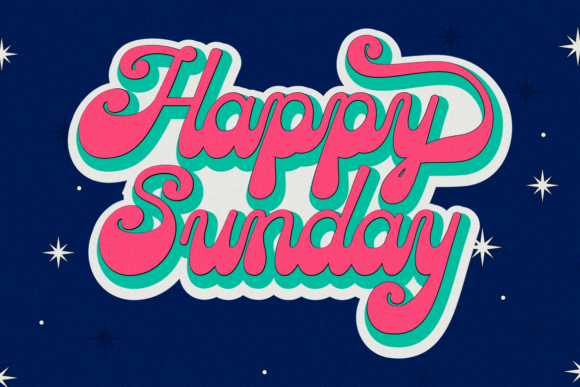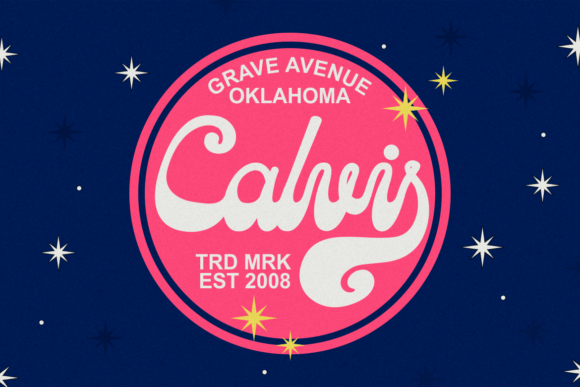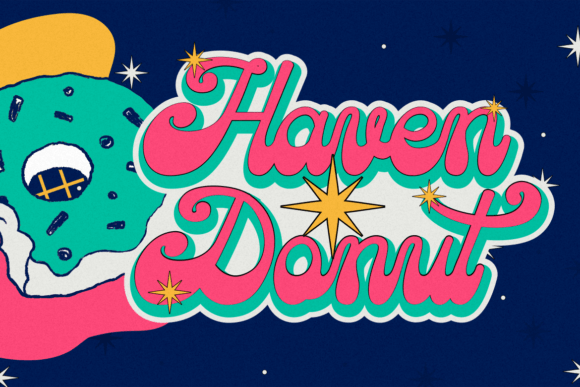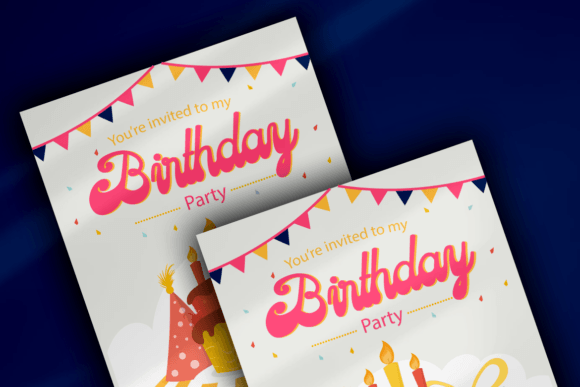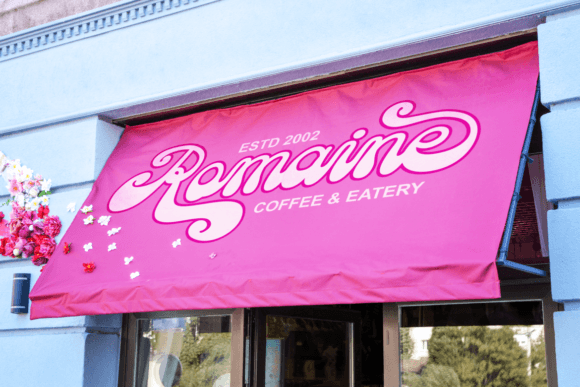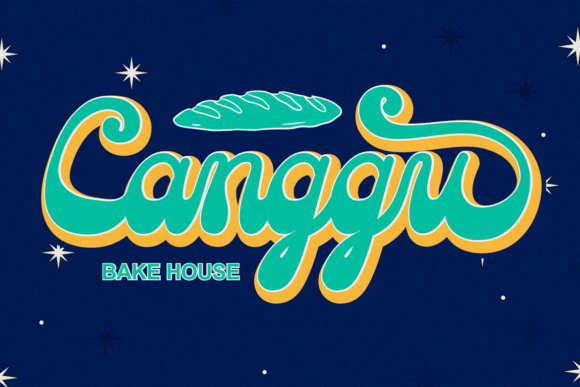
Chunk Five Font: A Retro Script Font to Bring Nostalgia to Your Designs
In the world of typography, few fonts manage to evoke a sense of nostalgia and charm as effectively as Chunk Five. This retro script font is a captivating display typeface that effortlessly transports you back to the retro and vintage eras, making it an excellent choice for designers and crafters looking to add a touch of the past to their creative projects.
The Distinctive Features of Chunk Five
Chunk Five’s distinctive feature lies in its bold and groovy bottom-heavy characters that make a strong impact on any design. The font’s unique shape and structure give it a playful and eye-catching appearance that’s sure to grab attention. Whether you’re working on a logo, packaging, or a poster, Chunk Five’s bold and chunky characters are sure to make your design stand out.
One of the standout features of Chunk Five is its extensive set of alternative characters. With an abundance of unique shapes and swashes to choose from, designers have endless creative possibilities at their fingertips. This means you can experiment with different combinations to create a truly unique look that reflects your brand’s personality or the tone of your project.
Ideal for Retro and Vintage-Themed Projects
Chunk Five is ideal for a wide range of projects seeking a retro or vintage theme. Whether you’re working on logos, packaging, invitations, greeting cards, posters, magazines, titles, or business branding, this font delivers a perfect dose of nostalgia and charm. Its retro and vintage style brings a touch of the past into your designs, making it an excellent choice for conveying a sense of history and personality to your creative projects.
Why Choose Chunk Five?
So why choose Chunk Five over other fonts? Here are just a few reasons why designers and crafters love this retro script font:
- Unique and eye-catching design: Chunk Five’s bold and groovy characters make it a standout font that’s sure to grab attention.
- Endless creative possibilities: With an extensive set of alternative characters, you can experiment with different combinations to create a truly unique look.
- Ideal for retro and vintage-themed projects: Chunk Five’s retro and vintage style makes it perfect for projects seeking a nostalgic feel.
Tips for Using Chunk Five
Here are a few tips for using Chunk Five in your designs:
- Experiment with different combinations: Take advantage of Chunk Five’s extensive set of alternative characters to create a truly unique look.
- Pair with other fonts: Chunk Five pairs well with other fonts, so don’t be afraid to experiment with different combinations.
- Use for headlines and titles: Chunk Five’s bold and eye-catching design makes it perfect for headlines and titles.
In conclusion, Chunk Five is a captivating retro script font that’s perfect for designers and crafters looking to add a touch of nostalgia and charm to their creative projects. With its bold and groovy characters, extensive set of alternative characters, and endless creative possibilities, Chunk Five is an excellent choice for any project seeking a retro or vintage theme. So why not give it a try and see how it can elevate your designs?